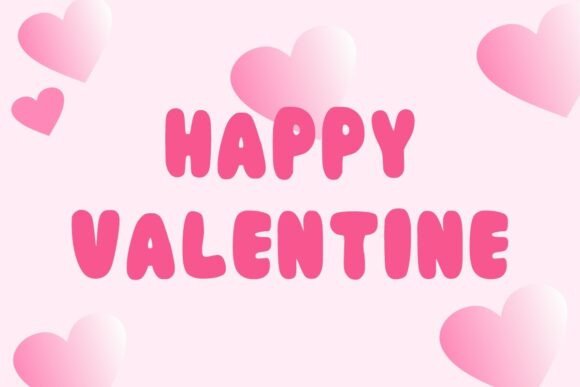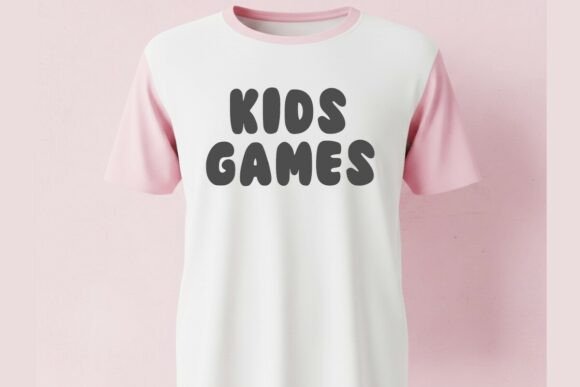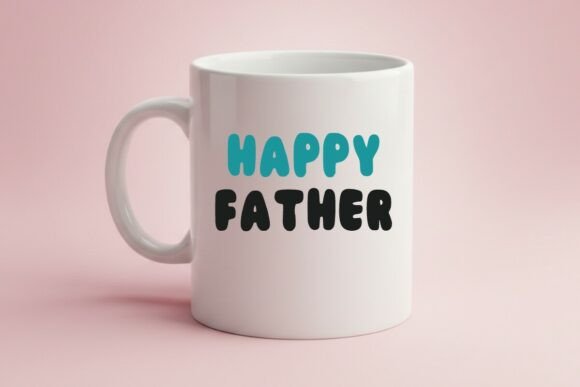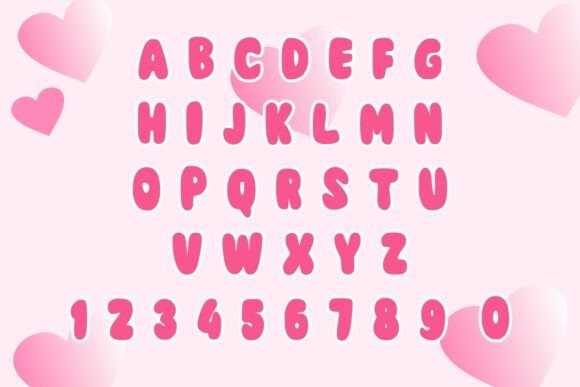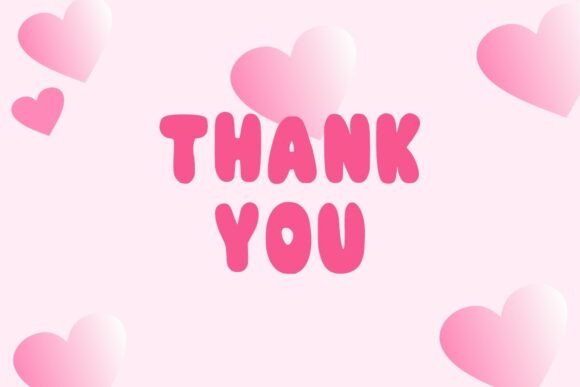
Pop into Action with Bubble Cartoon Font: The Ultimate Display Typeface
Are you looking for a font that can add a touch of fun and playfulness to your designs? Look no further than the Bubble Cartoon font, a lovable and “squishy” display typeface that’s perfect for engaging younger audiences or anyone with a young heart. In this article, we’ll explore the features and benefits of the Bubble Cartoon font, and how you can use it to take your designs to the next level.
What is Bubble Cartoon Font?
Bubble Cartoon font is a heavy, rounded, and full-of-personality typeface designed to mimic the inflated look of classic comic book lettering. Its thick strokes and soft corners radiate a sense of warmth and approachability, making it perfect for a wide range of design applications. Whether you’re working on sticker designs, birthday invitations, candy packaging, or kid-centric digital content, the Bubble Cartoon font is the perfect candidate.
Key Features of Bubble Cartoon Font
- Heavy and Rounded: The Bubble Cartoon font features thick strokes and soft corners, giving it a sturdy and rounded appearance that’s both fun and playful.
- Classic Comic Book Look: The font is designed to mimic the inflated look of classic comic book lettering, adding a touch of nostalgia and retro charm to your designs.
- Perfect for Younger Audiences: The Bubble Cartoon font is perfect for engaging younger audiences or anyone with a young heart, making it ideal for kid-centric designs.
Use Cases for Bubble Cartoon Font
The Bubble Cartoon font is versatile and can be used in a wide range of design applications, including:
- Sticker Design: Add a bright inner shadow or a bold white outline to give the font a 3D “sticker” effect that’s perfect for sticker designs.
- Birthday Invitations: Use the Bubble Cartoon font to create fun and playful birthday invitations that are sure to delight kids and adults alike.
- Candy Packaging: The font’s playful and whimsical nature makes it perfect for candy packaging and other sweet treats.
- Kid-Centric Digital Content: The Bubble Cartoon font is ideal for kid-centric digital content, such as children’s apps, games, and websites.
Tips for Using Bubble Cartoon Font
To make the Bubble Cartoon font truly shine, here are some tips to keep in mind:
- Add a Bright Inner Shadow: Add a bright inner shadow to give the font a 3D “sticker” effect that’s perfect for sticker designs and other applications.
- Use a Bold White Outline: Use a bold white outline to add contrast and make the font stand out even more.
- Experiment with Colors: The Bubble Cartoon font looks great in bright, bold colors, so don’t be afraid to experiment and find the perfect color scheme for your design.
Why Designers and Crafters Love Bubble Cartoon Font
The Bubble Cartoon font is a must-have for designers and crafters working in the fun, vibrant worlds of animation, party supplies, and kid-centric digital content. Its playful and whimsical nature makes it perfect for a wide range of design applications, and its versatility ensures that it can be used in a variety of creative ways.
Whether you’re a professional designer or a crafter looking for a fun and playful font to add to your collection, the Bubble Cartoon font is a great choice. Its unique and eye-catching design is sure to delight kids and adults alike, and its ease of use makes it perfect for a wide range of design applications.
In conclusion, the Bubble Cartoon font is a lovable and “squishy” display typeface that’s perfect for engaging younger audiences or anyone with a young heart. Its thick strokes and soft corners radiate a sense of warmth and approachability, making it perfect for a wide range of design applications. With its versatility, ease of use, and unique design, the Bubble Cartoon font is a must-have for designers and crafters working in the fun, vibrant worlds of animation, party supplies, and kid-centric digital content.